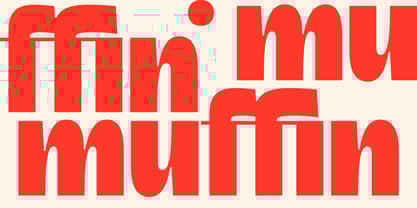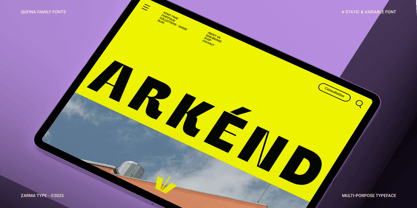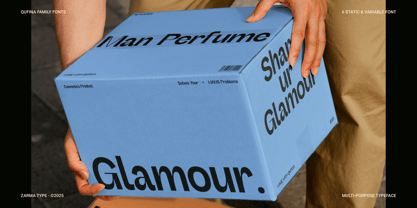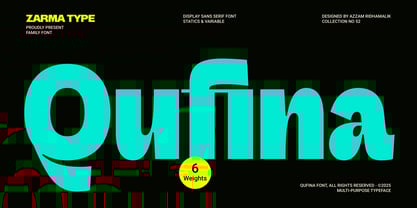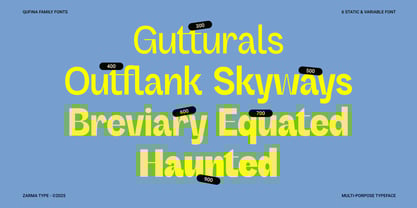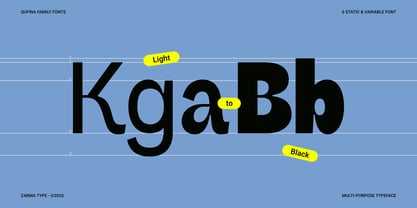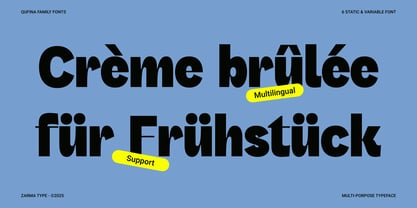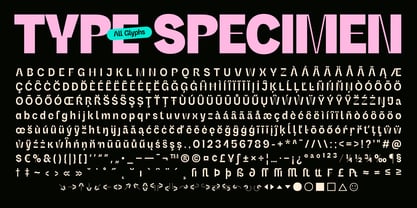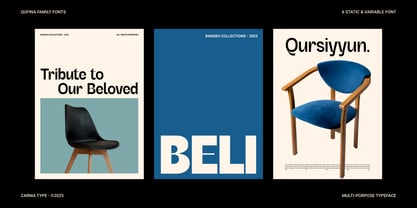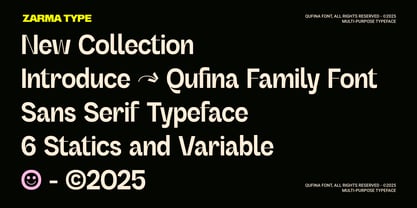
Qufina
by Azzam Ridhamalik
The Qufina Font Family was designed by Azzam Ridhamalik and published by Azzam Ridhamalik. Qufina contains 6 styles and family package options.
Qufina is a modern sans serif font family with six clean weights and a variable font that makes design easier and bolder. Its fresh geometric curves and quirky letterforms give your layouts personality, while maintaining legibility across all screen sizes and print formats.
Perfect for branding, editorial work, and packaging, Qufina delivers flexibility and a strong design voice. With multilingual support and stylish versatility, Qufina is built for today’s creatives who want functional flair in every type of project.